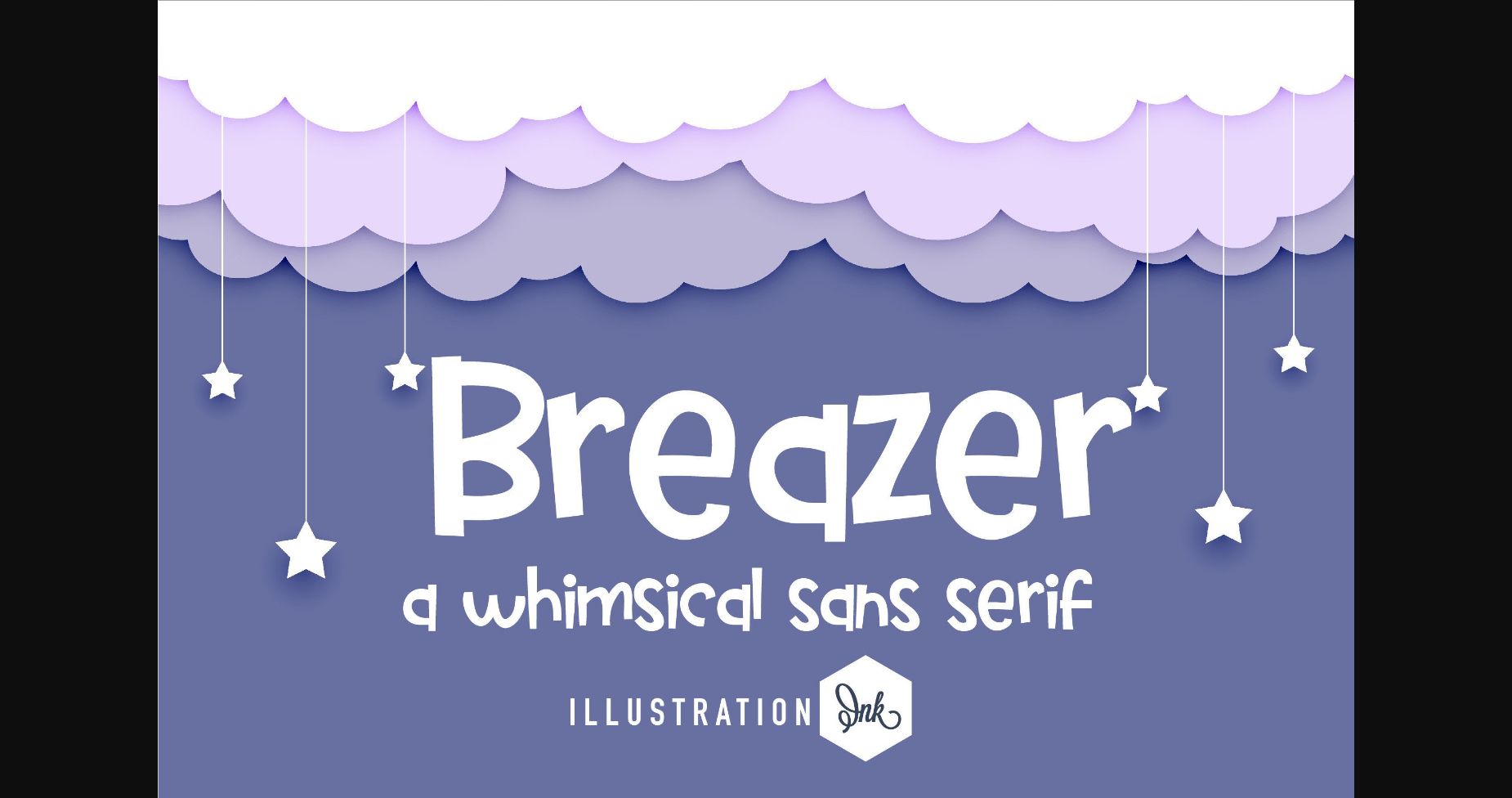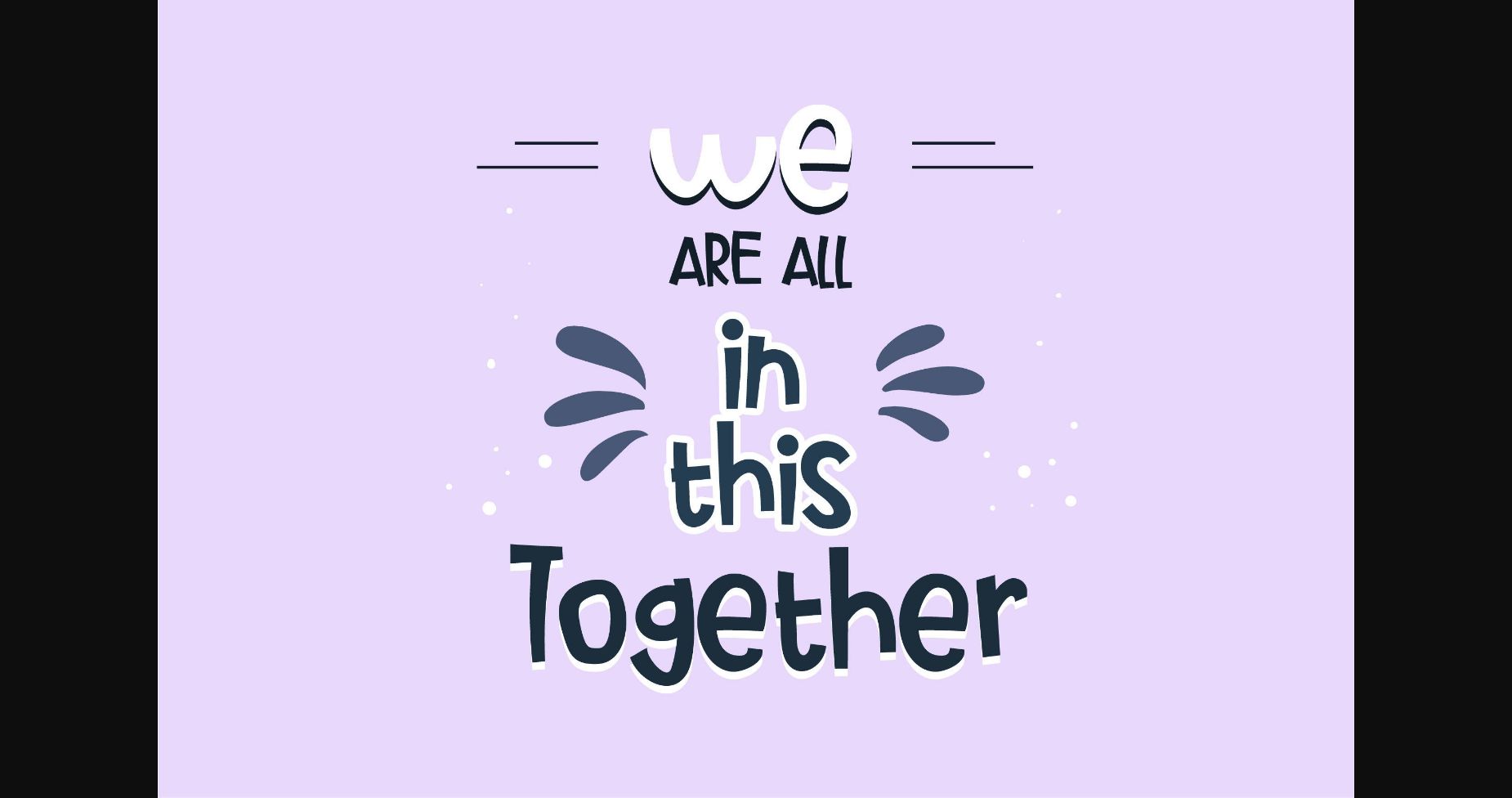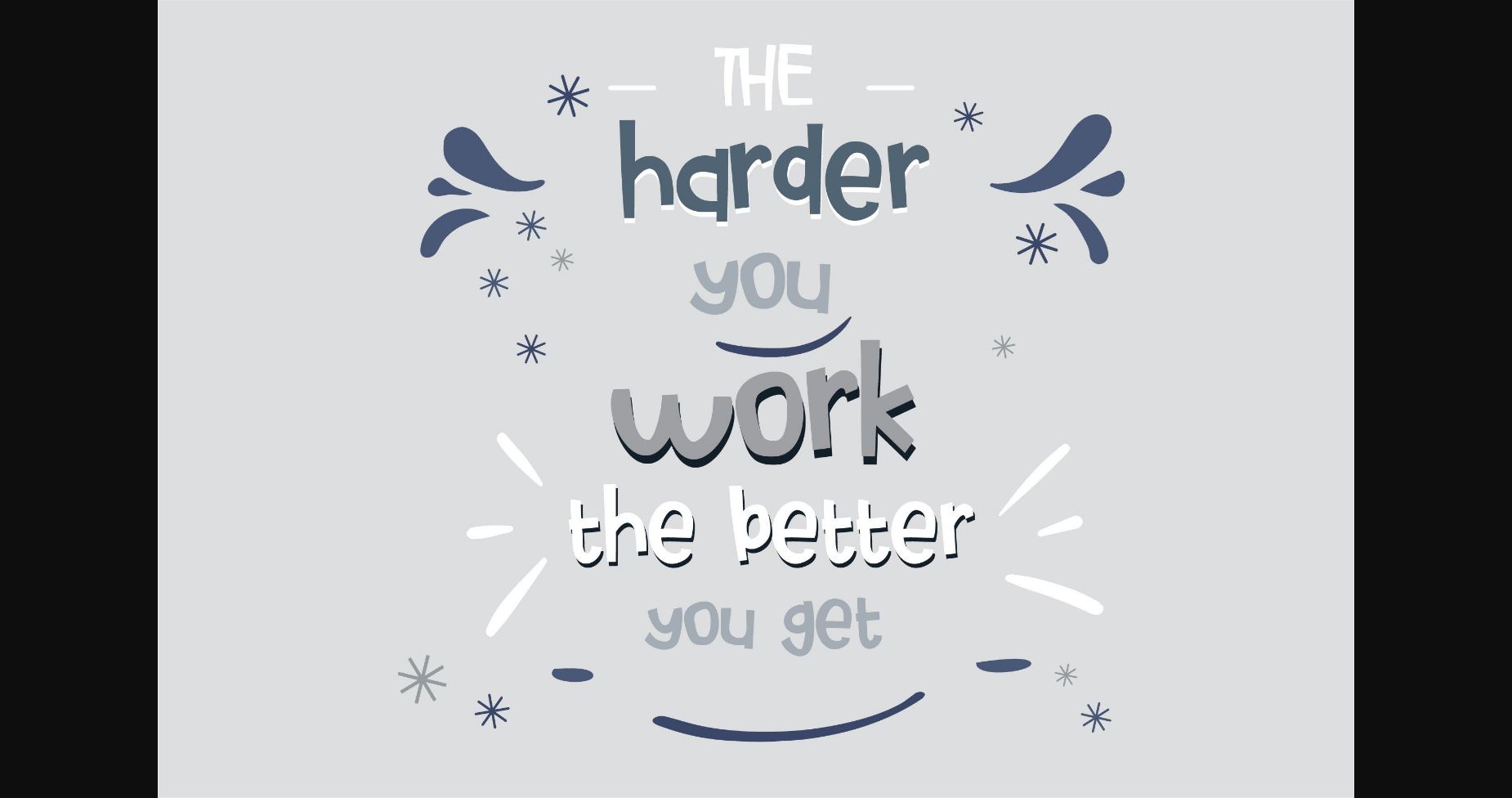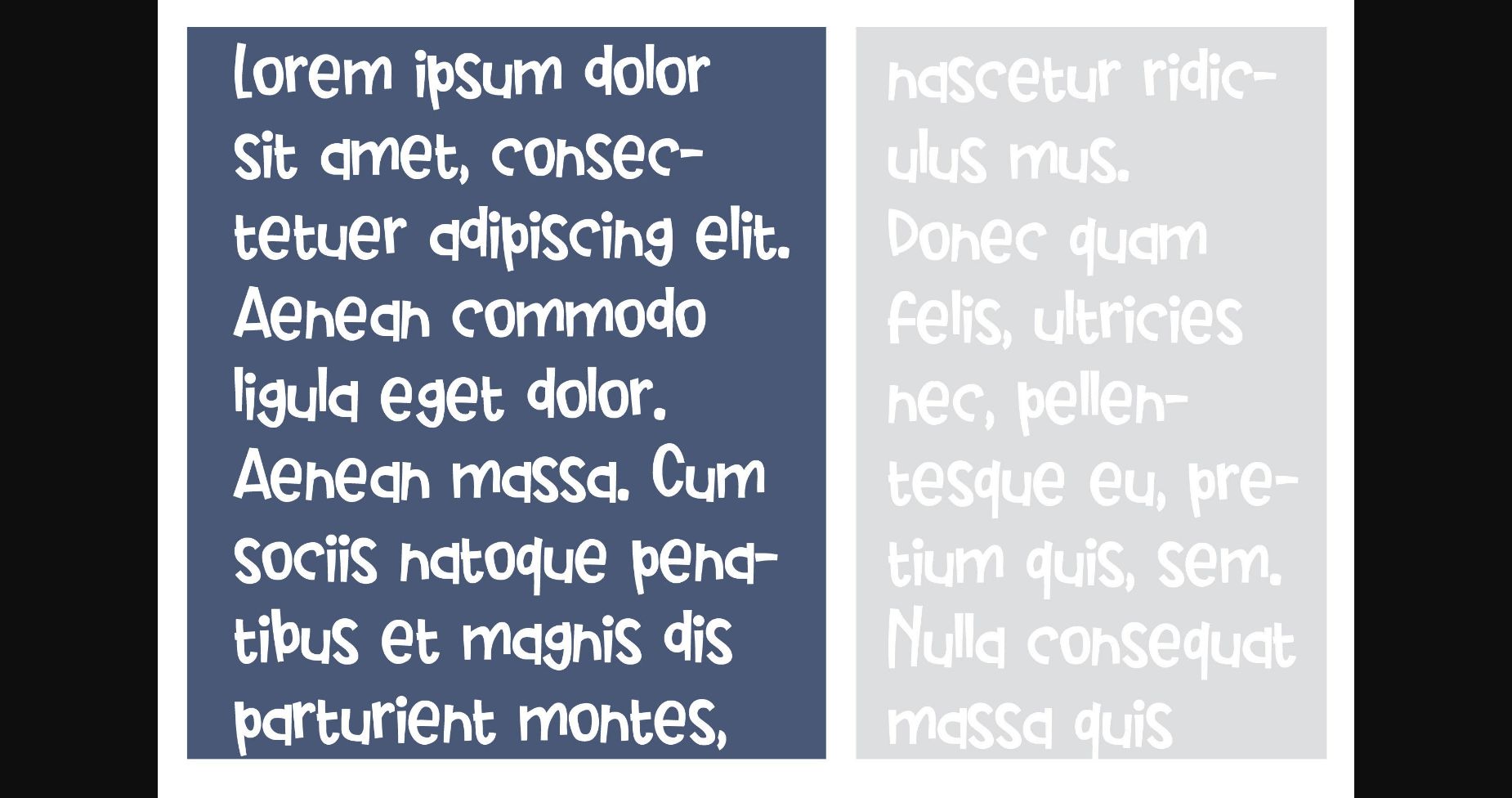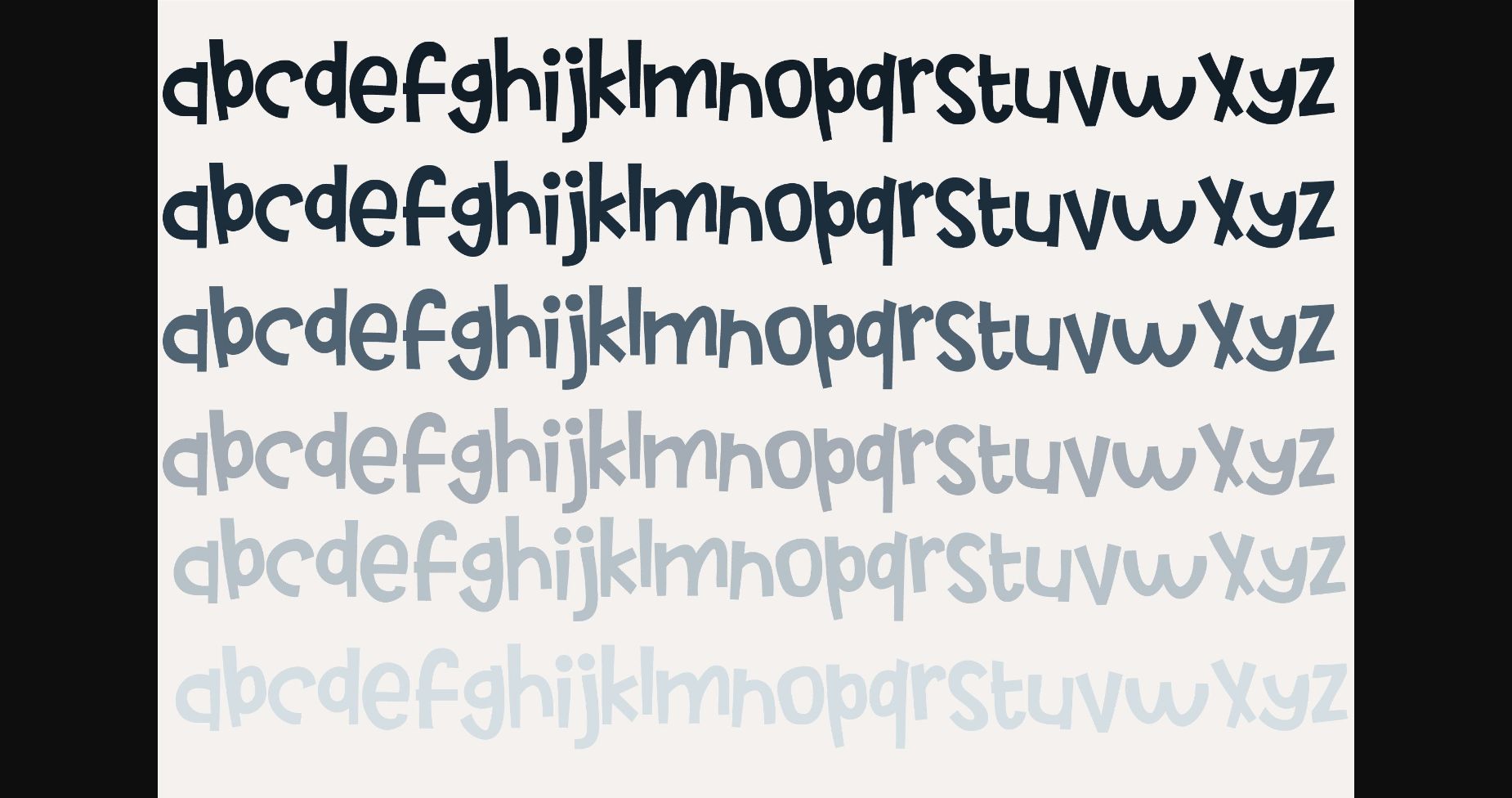
This sans serif font is blocky, silly, and very crafty. It is perfect for storybooks, book covers, magazines, name tags, product packaging, or anything with a youthful vibe.